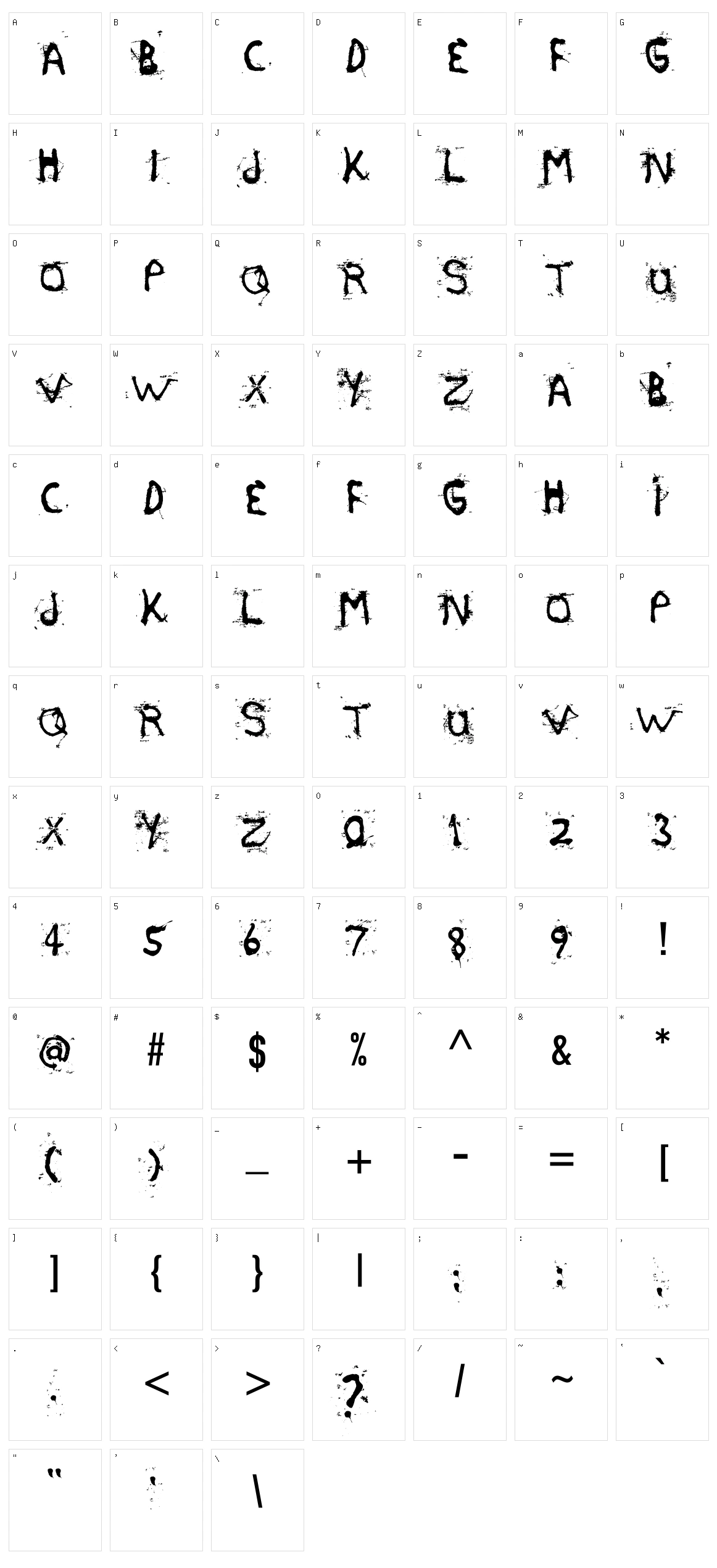
The free font Etasilicon is carefully designed by Ali Yasar Isgoren, showcasing a thoughtful balance of creativity and usability and falls under the Trash font style. When you download the ZIP file, it contains only 134.81 KB of font files, making it lightweight and quick to download. Please review the license details below to understand permitted usage and distribution rights. If license information is not available, we recommend using this font for personal projects only or contacting the author directly for commercial usage permissions.